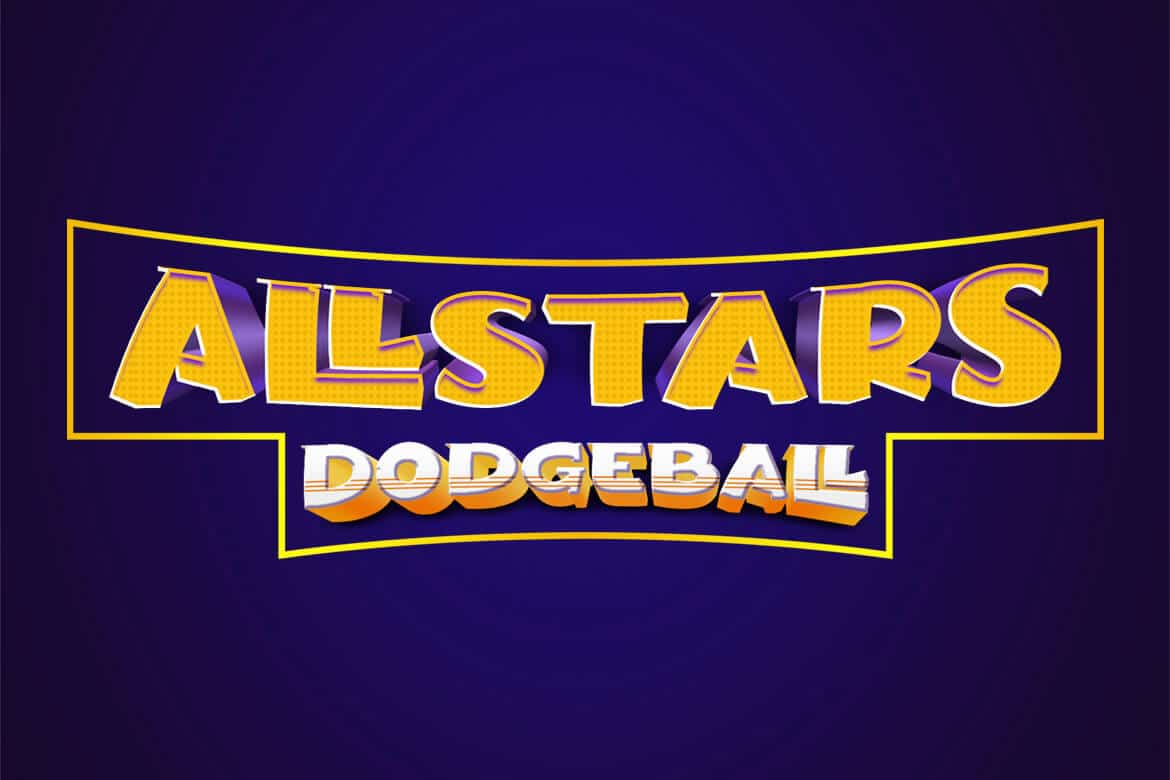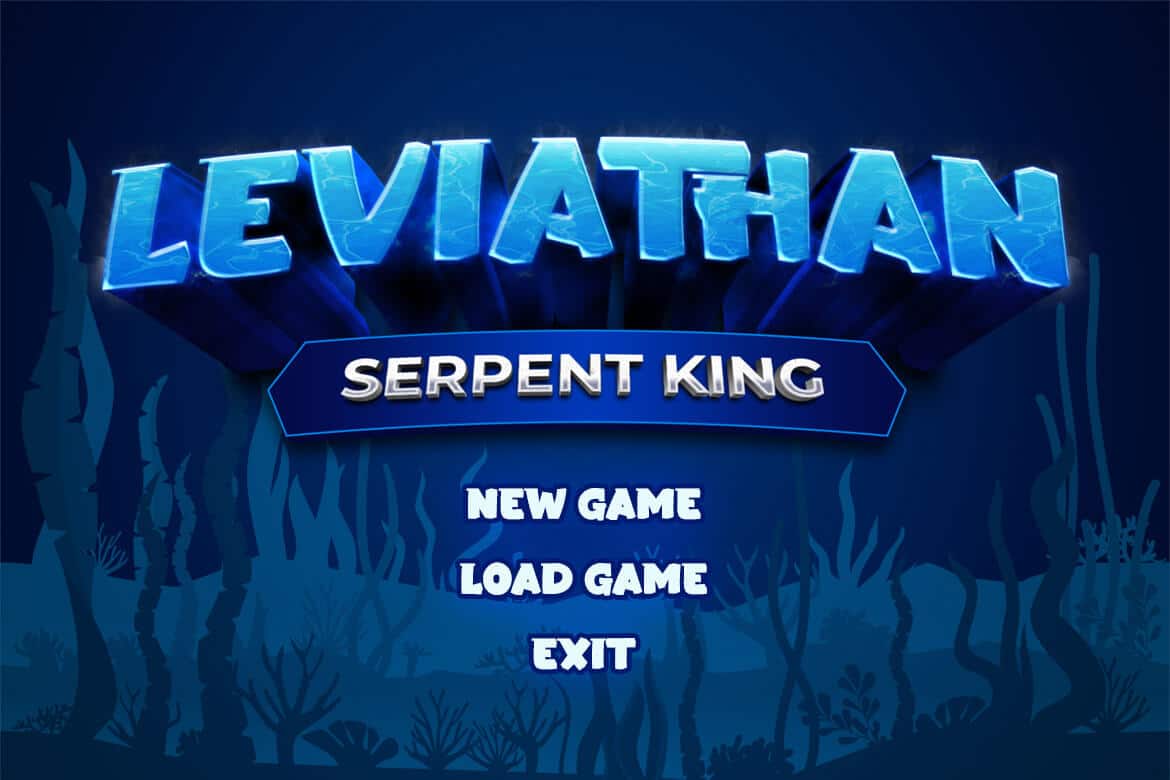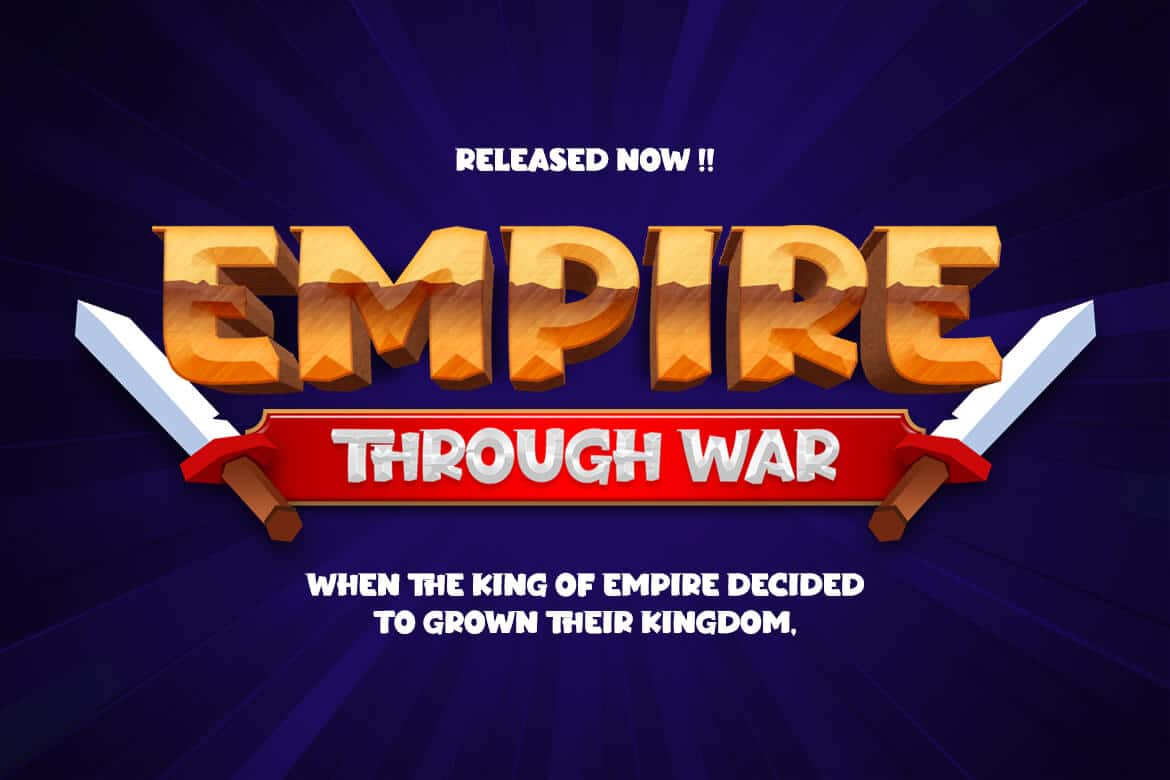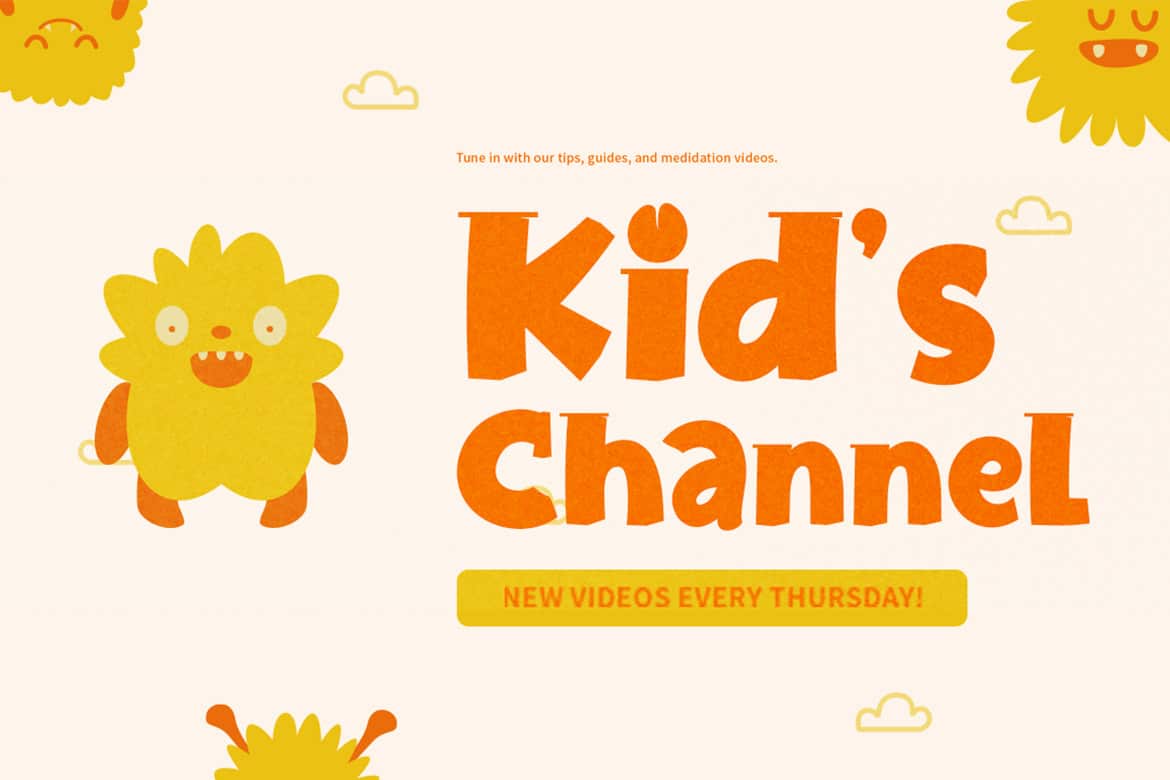
Jaxell Font
Jaxell is a whimsical Display Font with distinct and unique qualities that may be used as the title of your project, and it’s also lovely when used in sentence text. This font is perfect for games, sporting events, branding, banners, posters, movie titles, book titles, quotes, logotypes, and more.